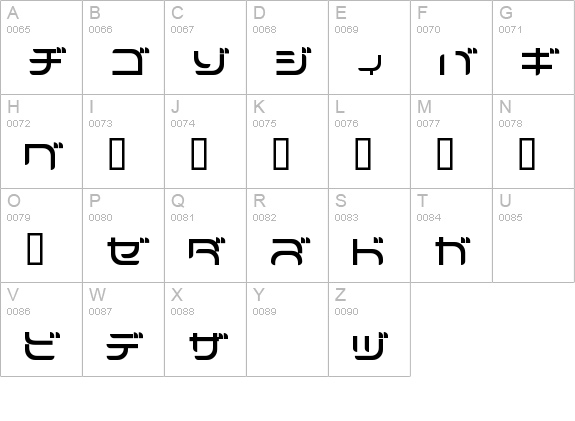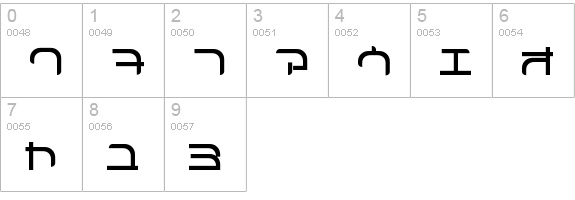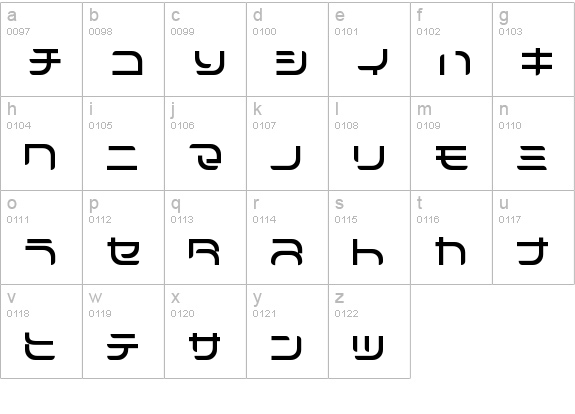
Introducing Hyperion Kat font, a sleek and modern typeface that exudes sophistication and elegance. With its sharp lines and contemporary design, Hyperion Kat is perfect for adding a touch of class to any project. Whether you're creating a logo, designing a website, or working on a printed piece, this font will make your text stand out. What makes Hyperion Kat even better is that it is completely free to download. Yes, you read that right - you can get this stunning font at no cost! Simply head over to FontsMarket.com and grab your copy today. Don't miss out on this amazing opportunity to elevate your design projects with the beautiful Hyperion Kat font.